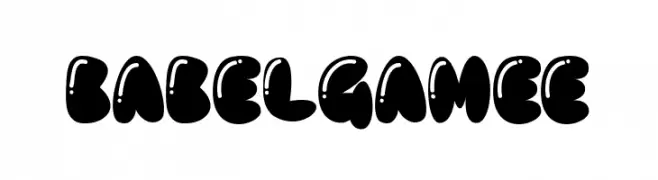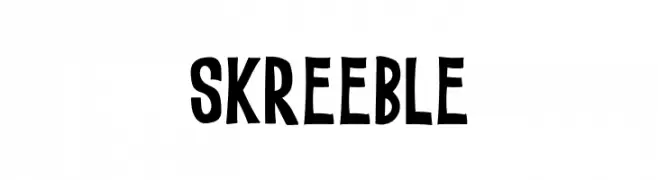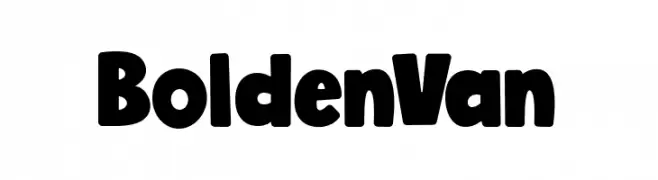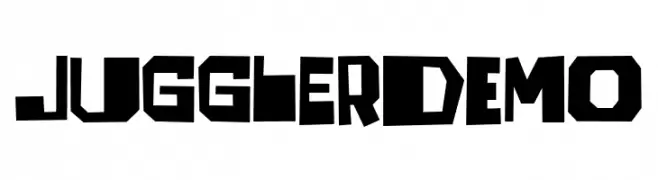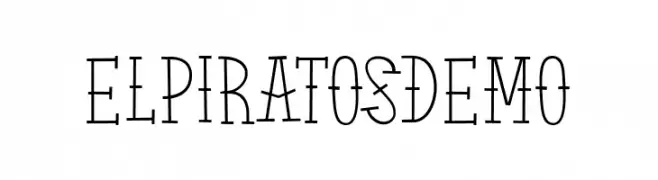
( Fonts by Alexander Pravdin )
A playful, handwritten-style font with rounded edges and consistent stroke width.
( Fonts by Alexander Pravdin )
A playful, rounded sans-serif font with bold, smooth curves.
( Fonts by Alexa )
A bold, bubble-like font with a playful and modern style.
( Fonts by Alexa )
A bold, playful font with thick, rounded characters and a modern, decorative style.
( Fonts by Alexa )
A playful and quirky font with irregular, wavy letterforms.
( Fonts by Alexa )
A bold, playful font with thick, rounded characters and a friendly vibe.
( Fonts by Alexa )
A bold, geometric font with a playful and dynamic style.
( Fonts by Alexa )
A bold, angular font with a modern, edgy style.
( Fonts by Alexa )
A playful and whimsical font with elongated, narrow characters.
( Fonts by Alexa )
A playful, hand-drawn font with irregular, whimsical characters.